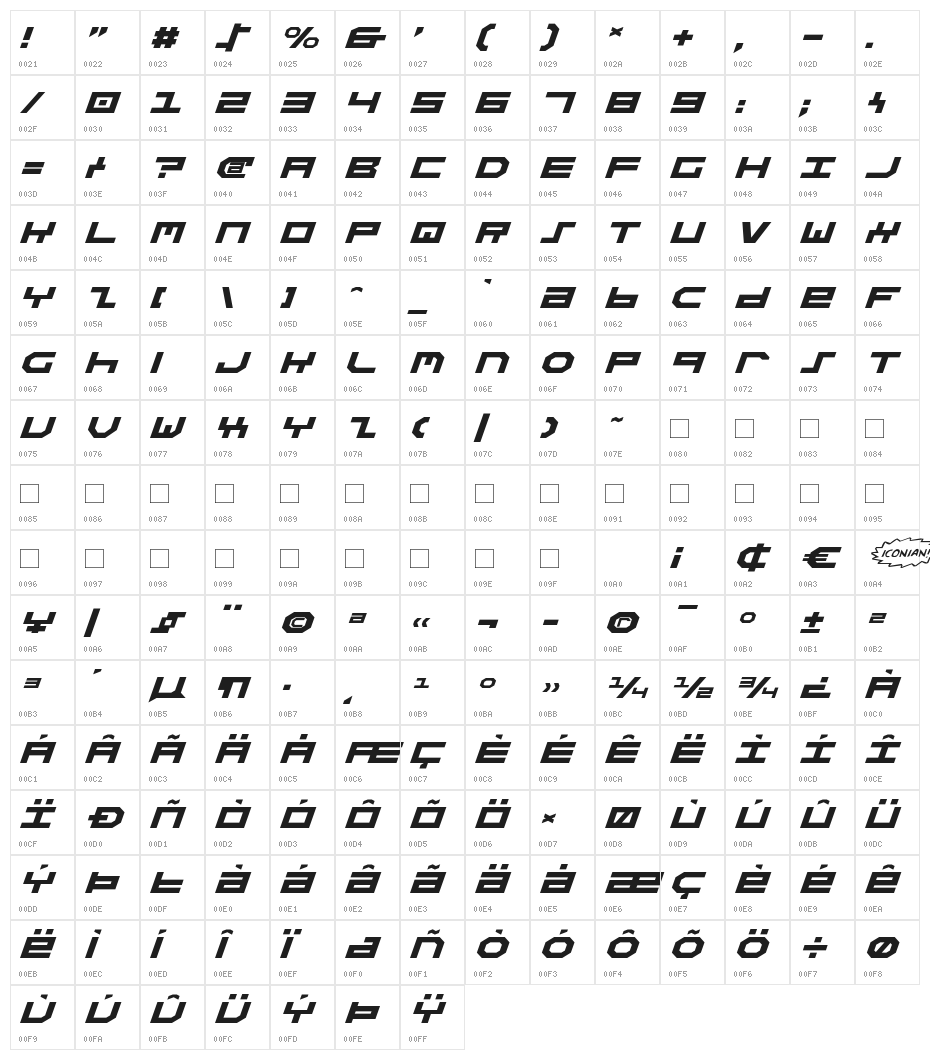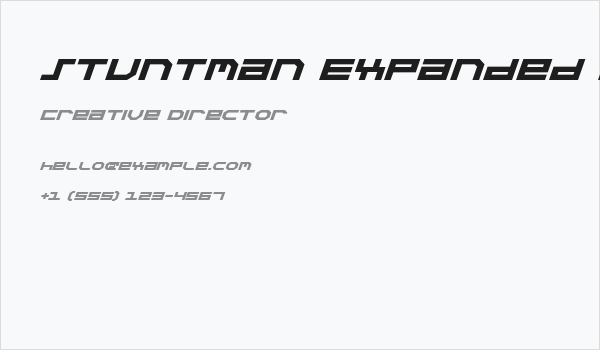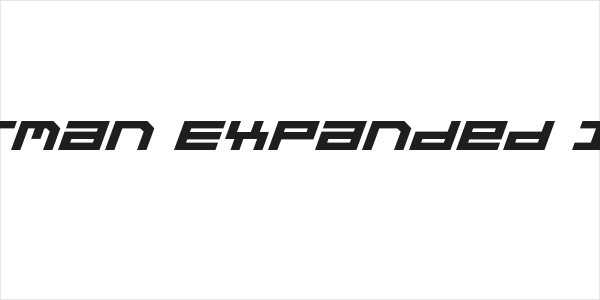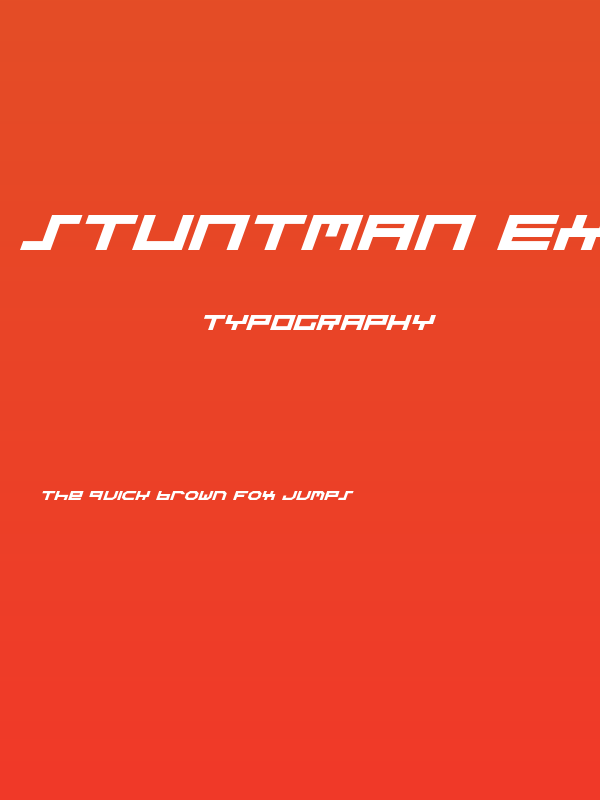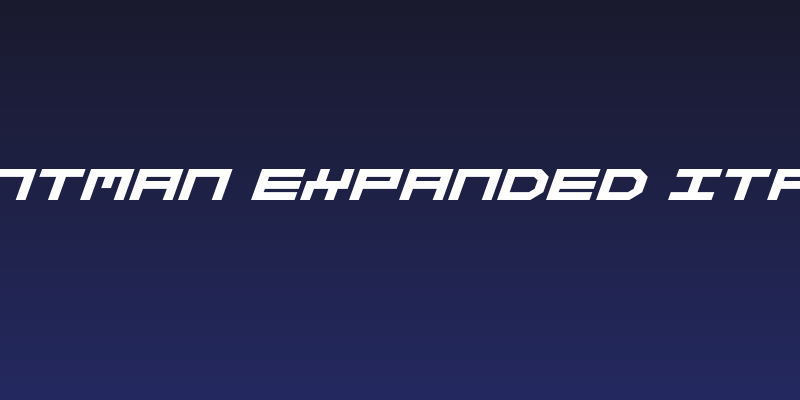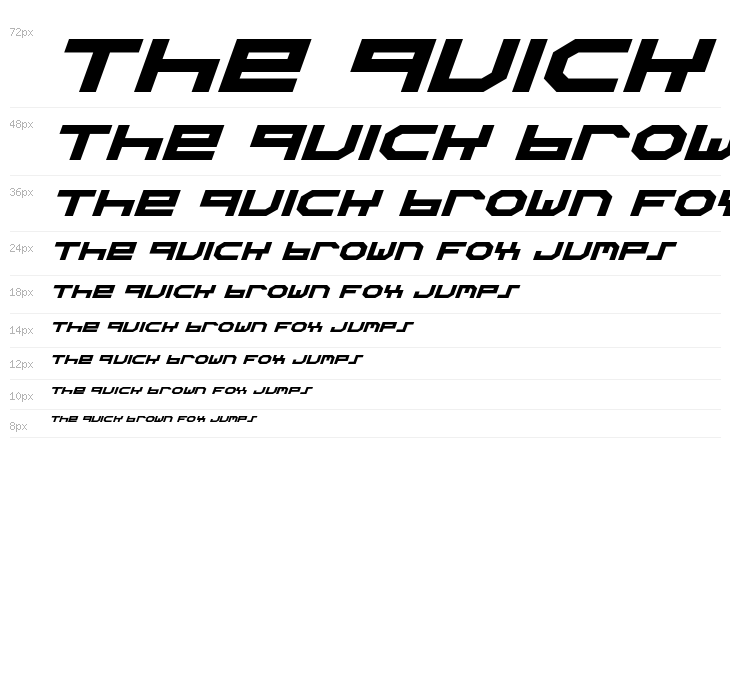
Stuntman Expanded Italic Font
Stuntman Expanded Italic Description
This font features a bold, angular design with a distinctly futuristic and dynamic appearance. The characters are expanded and italicized, giving them a sense of motion and speed. The sharp edges and geometric shapes contribute to its modern and edgy style. The uppercase and lowercase letters maintain a consistent design, with the lowercase mirroring the uppercase in form. Numbers and special characters are crafted with the same angular precision, ensuring uniformity across all glyphs. This font is well-suited for projects that require a bold statement, such as technology branding, sports team logos, or action-themed posters.
| Proposed Projects | Ideal for technology branding, sports team logos, action-themed posters, and video game titles. |